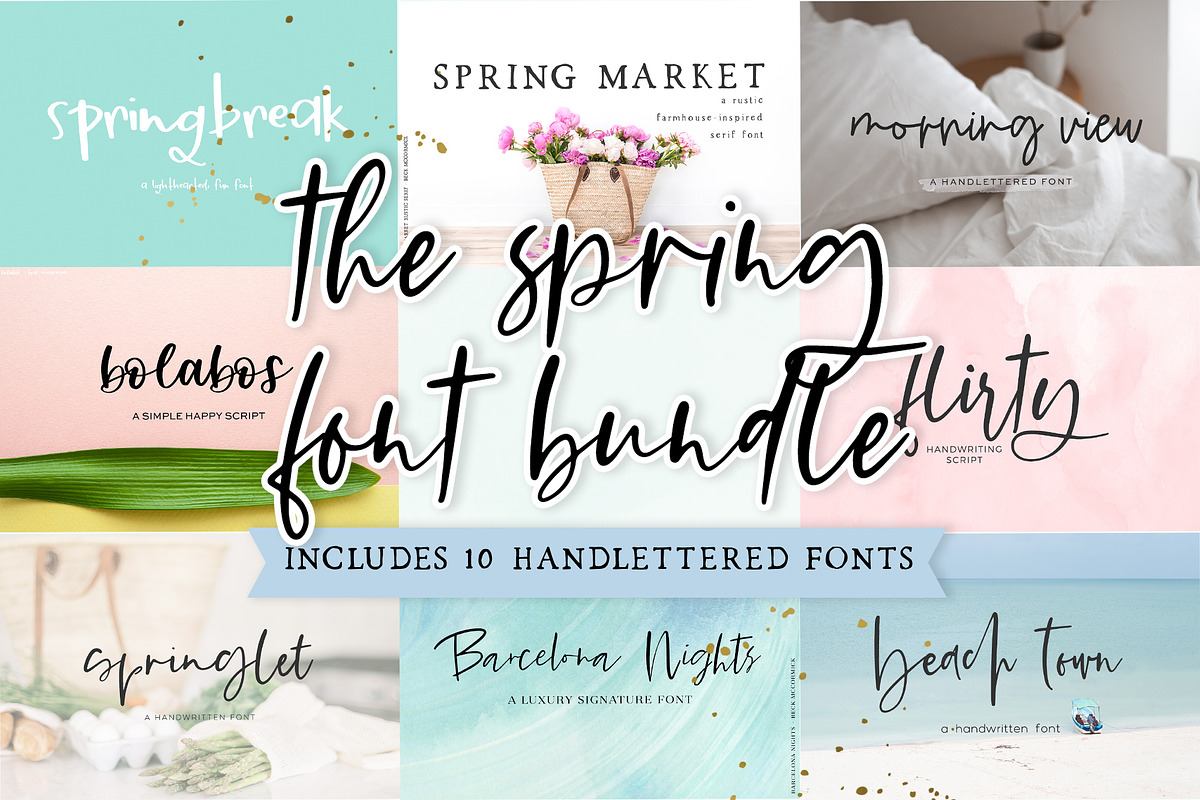
The Spring Font Bundle Free Download is a vibrant and refreshing collection of fonts designed to bring a breath of fresh air to your designs. Perfect for seasonal branding, invitations, social media graphics, and packaging, this bundle offers a variety of styles that add a lively, cheerful touch to your work.
With a mix of script, serif, and sans-serif fonts, The Spring Font Bundle Free Download provides you with all the tools you need to create beautiful, harmonious designs. Whether you're designing for a spring event, a nature-inspired brand, or a seasonal promotion, this bundle offers versatility and elegance. Try it in your next project to see how it brightens up your typography—then upgrade to a commercial license when you're ready to go live.